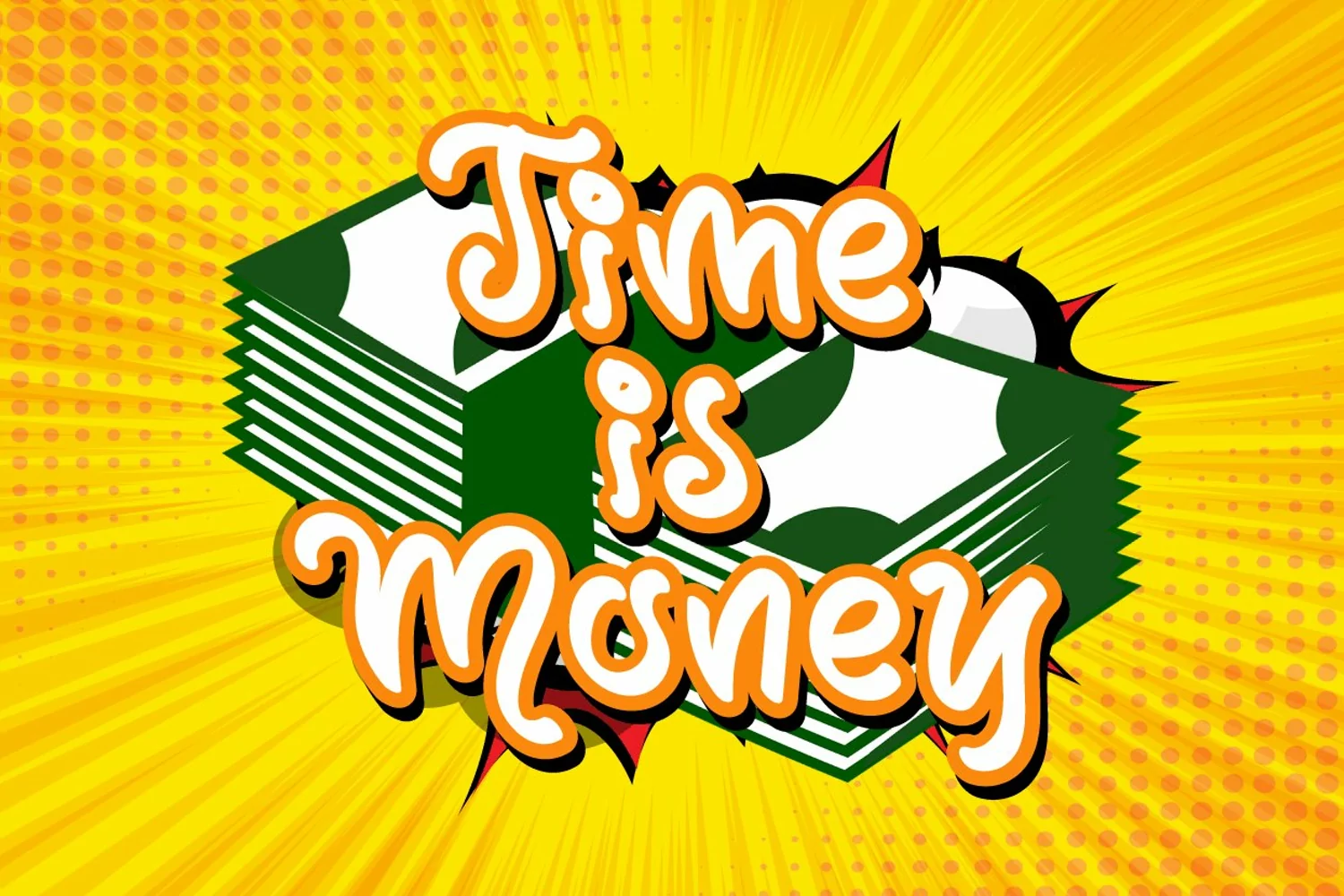
Strong Magic a new fresh & simple handwritten font style! So beautiful on invitation like greeting cards, branding materials, business cards, quotes, posters, and more!!
StrongMagic